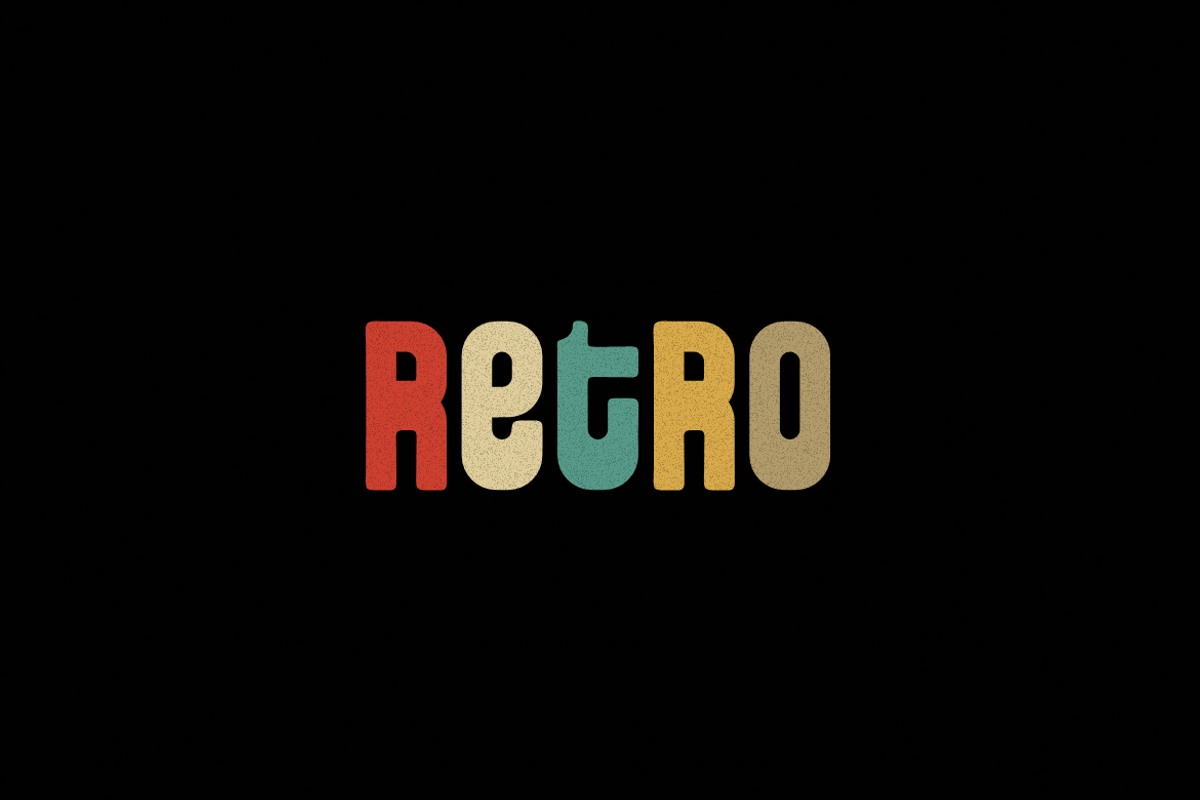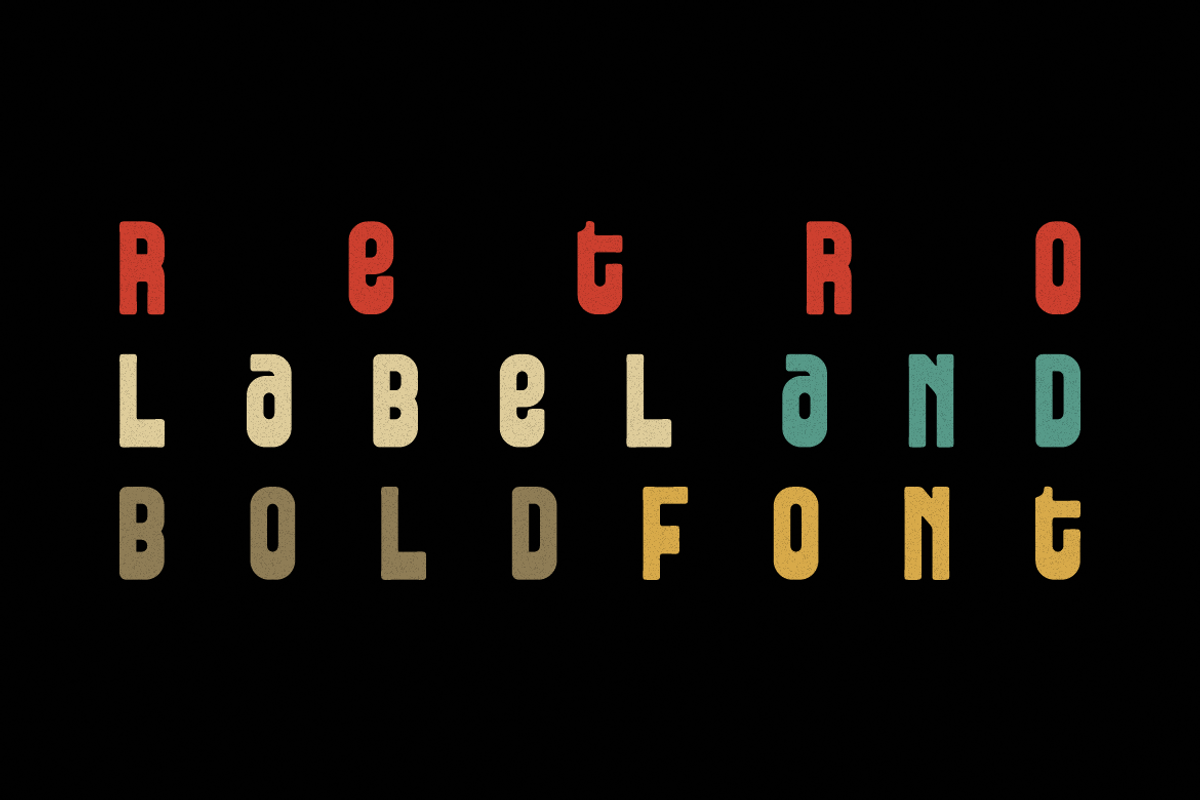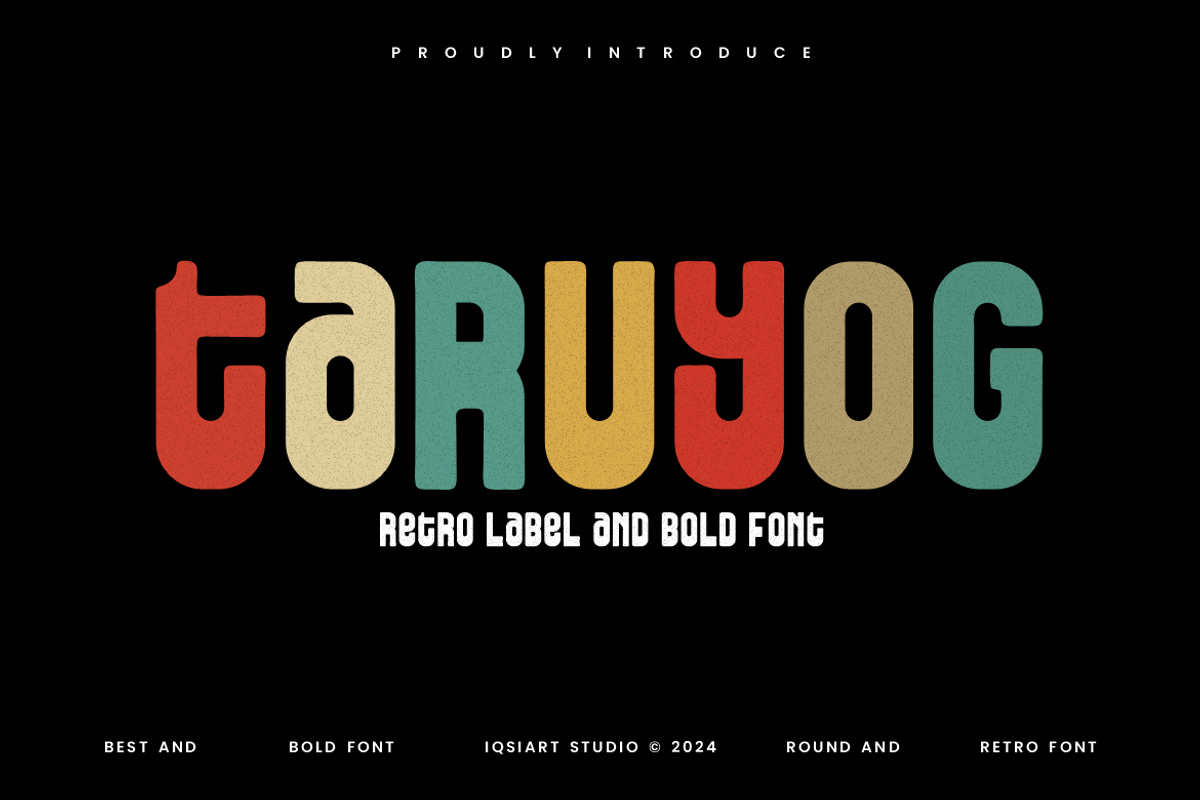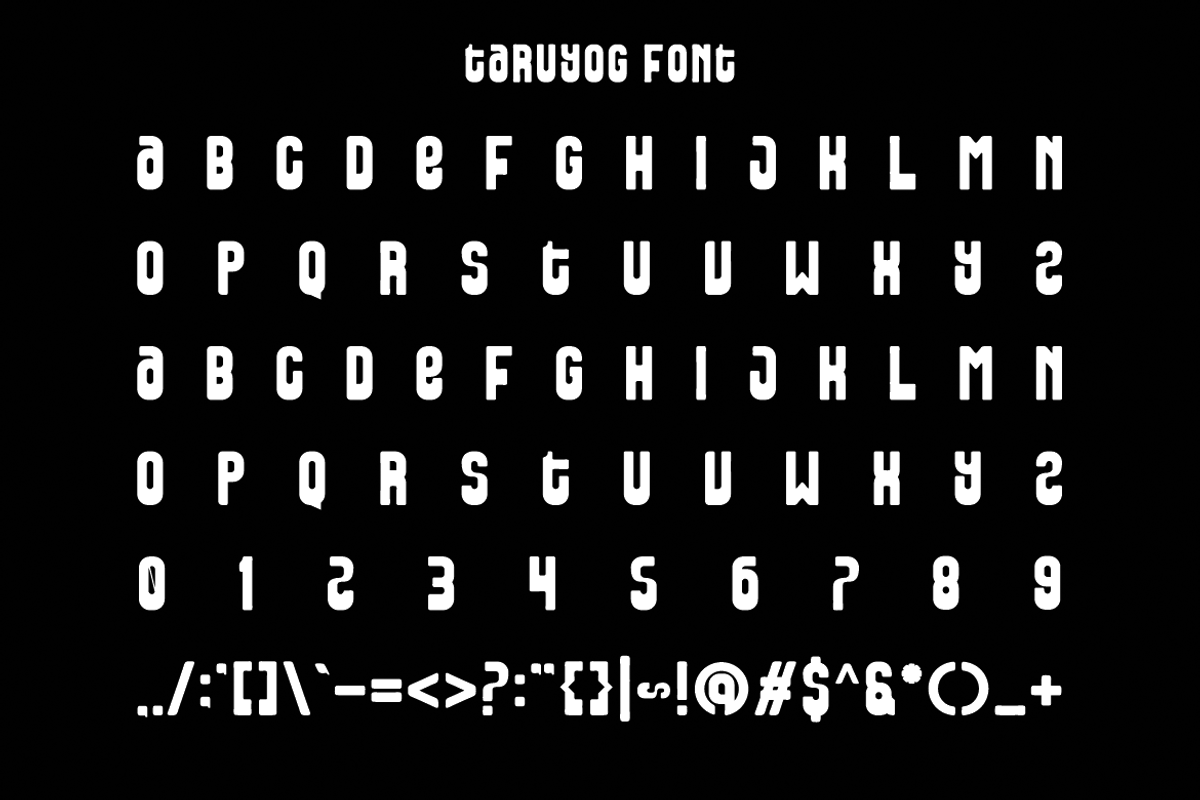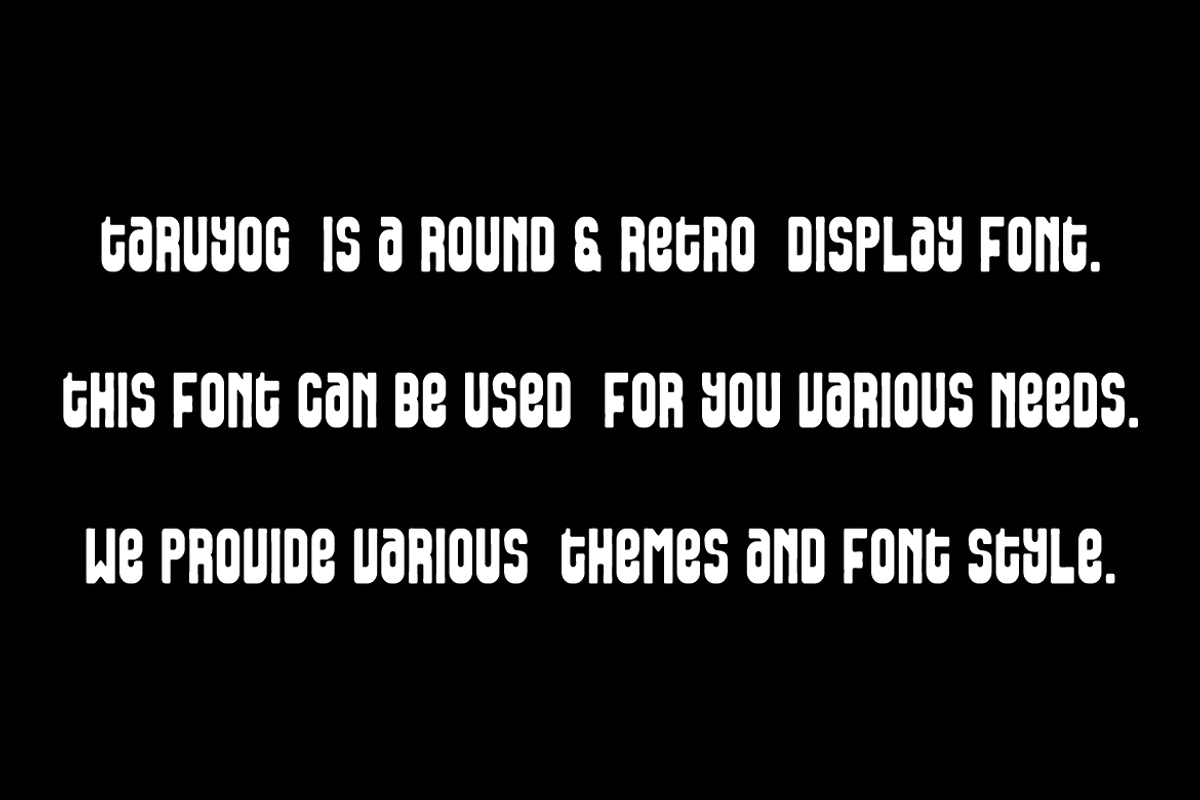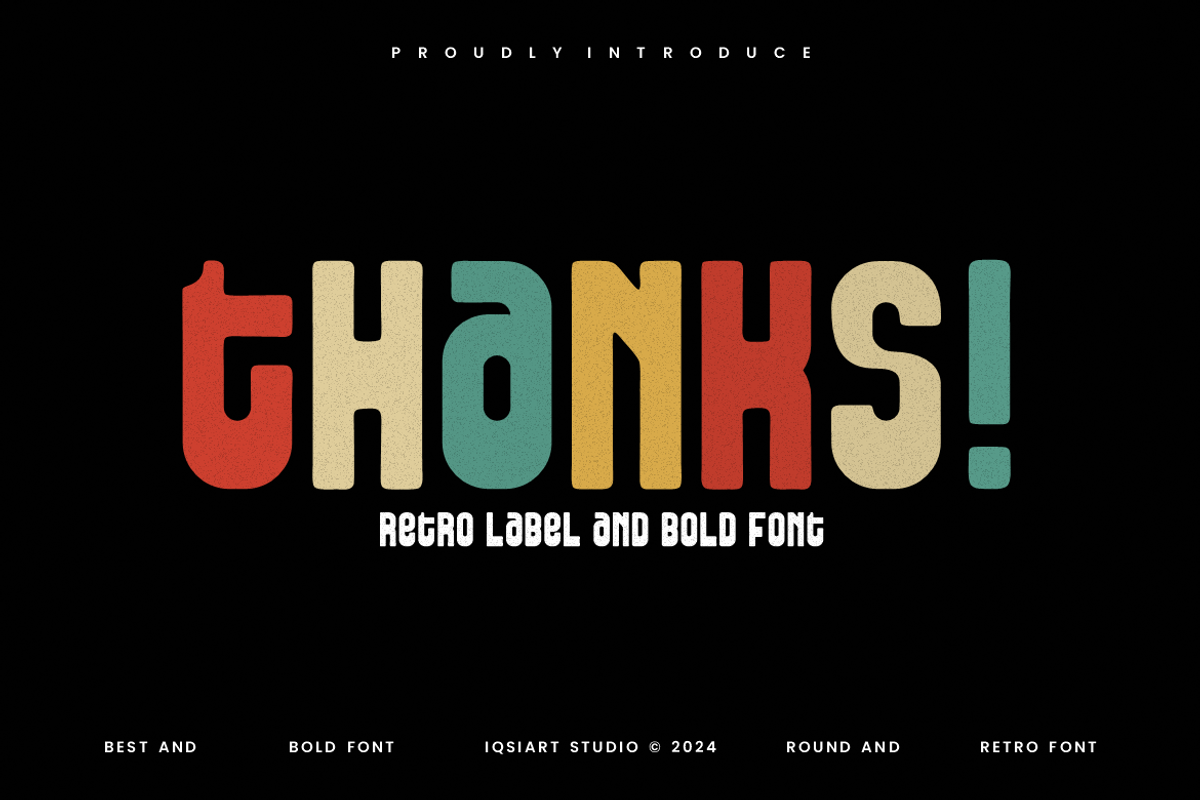
Taruyog - Retro Label Font
Taruyog Font is a best and authentic display font. This font can be used for your various needs. We provide various themes and font styles. visit our profile to get a wide variety of themes and different font styles you need.